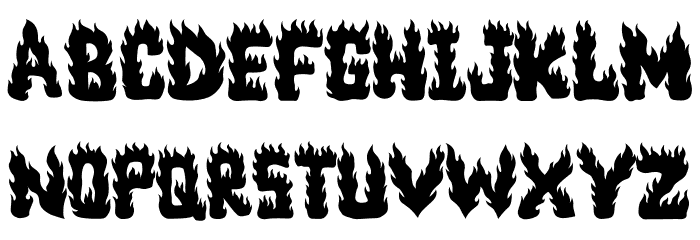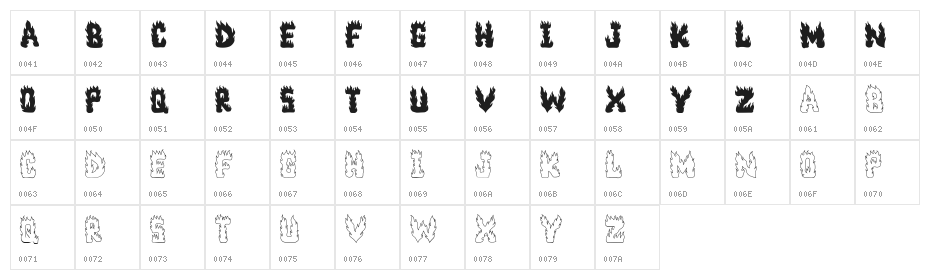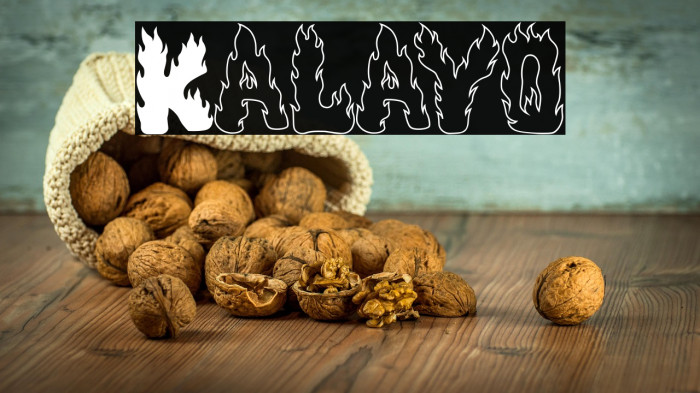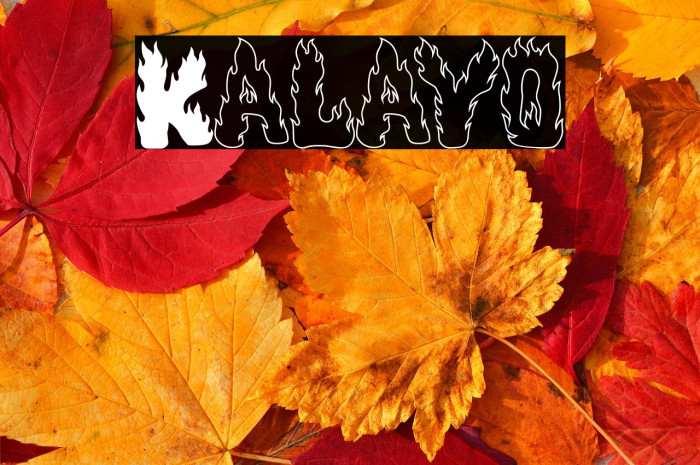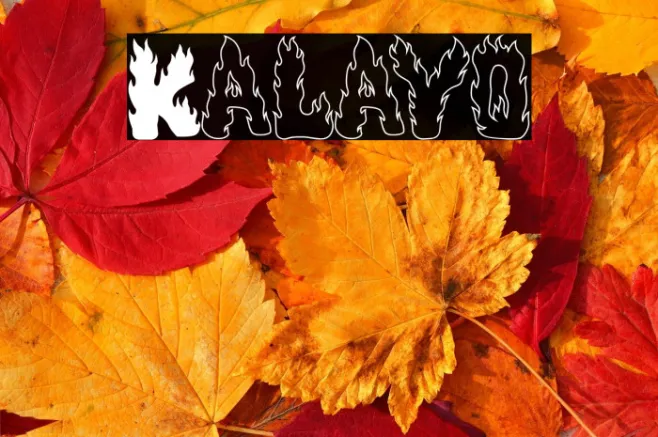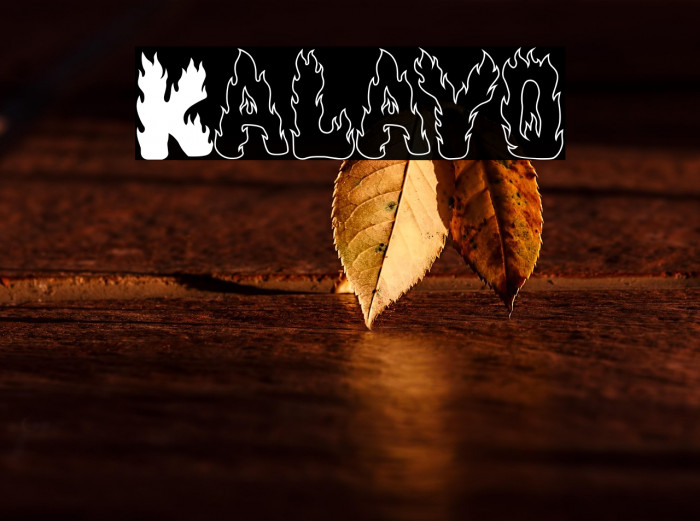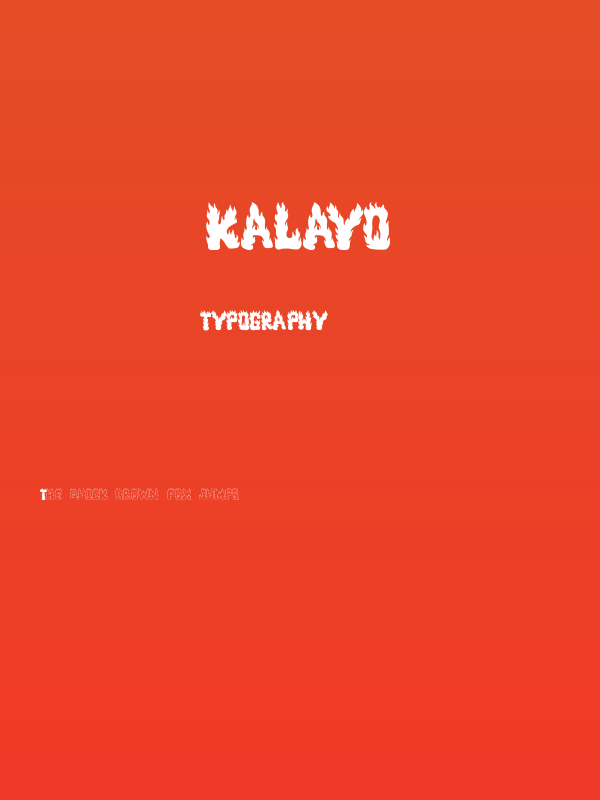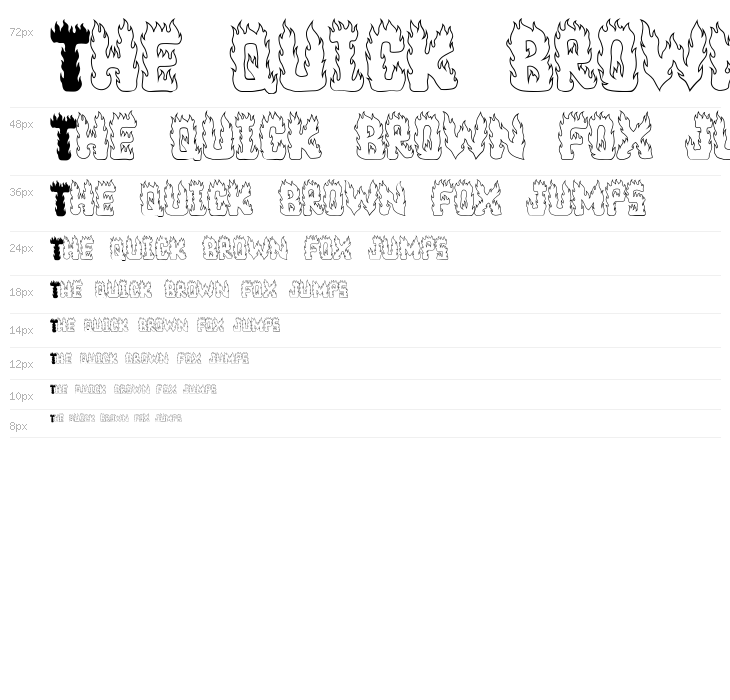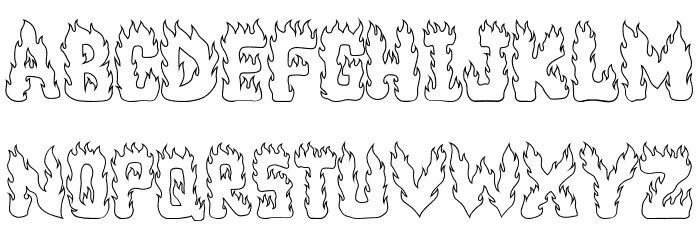
Kalayo Font
Kalayo Description
This font features bold, uppercase letters with a dynamic flame-like design that gives each character a sense of movement and energy. The flames are integrated into the top of each letter, creating a striking and eye-catching effect. The font is highly decorative, making it ideal for projects that require a strong visual impact. The characters are evenly spaced, with a consistent width that maintains readability despite the intricate design. The bold strokes and high contrast between the thick letterforms and the thin flame details add to its dramatic appearance.
| Proposed Projects | Ideal for use in posters, event flyers, album covers, or any project needing a fiery, energetic aesthetic. |